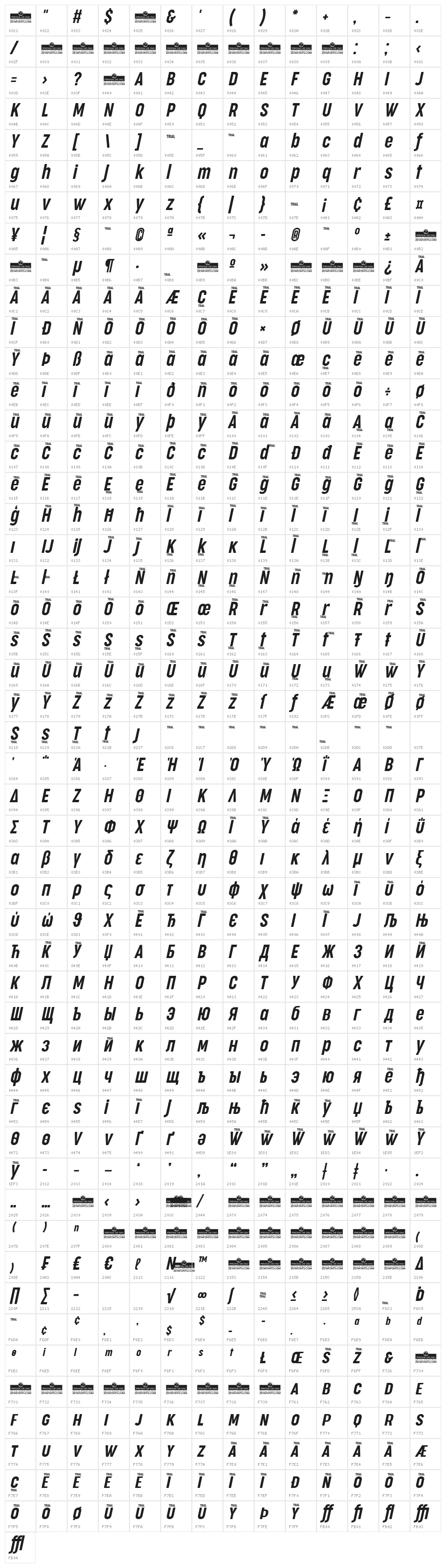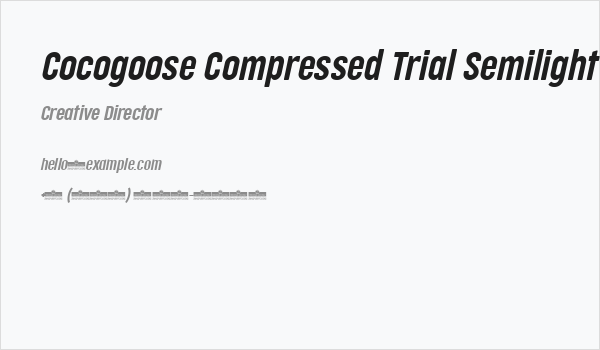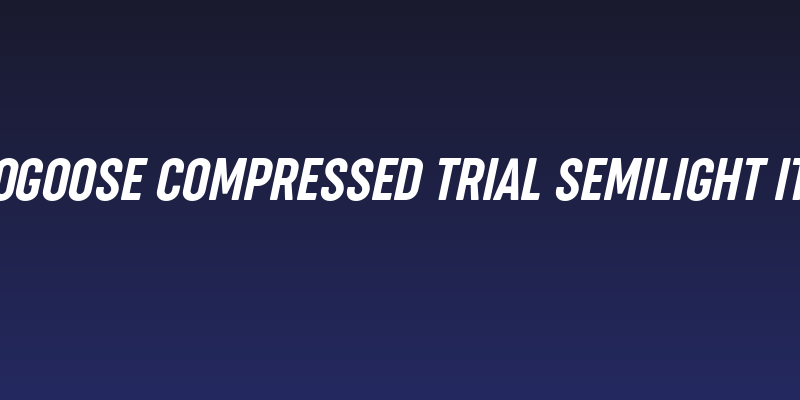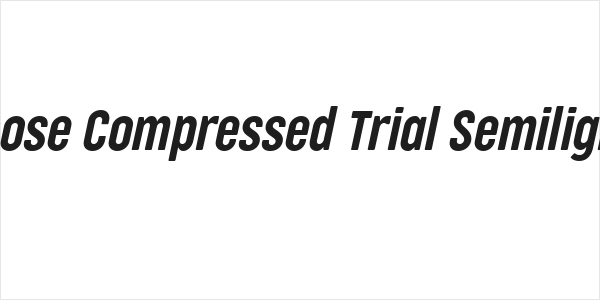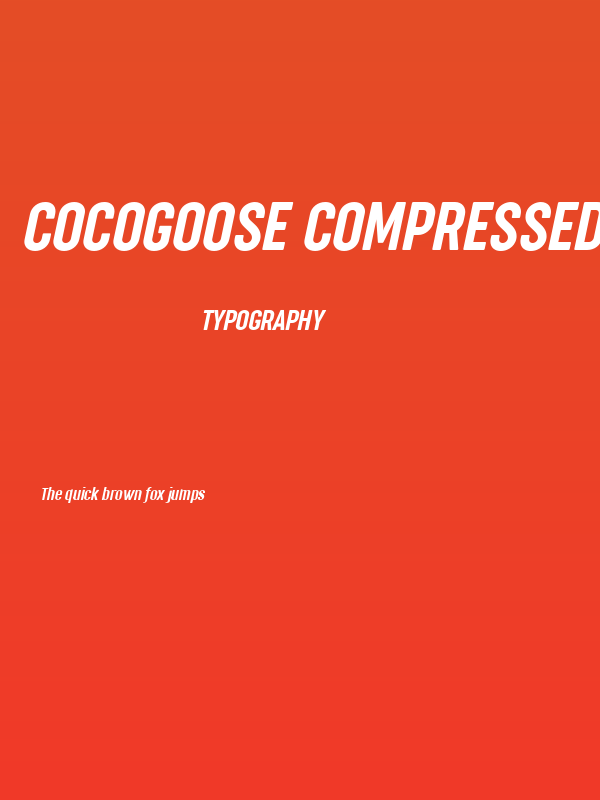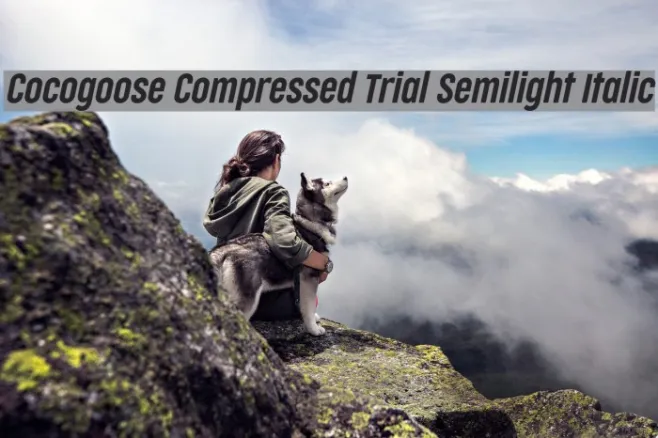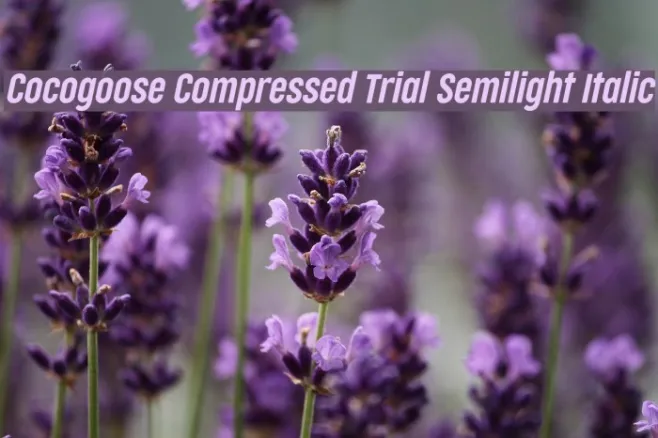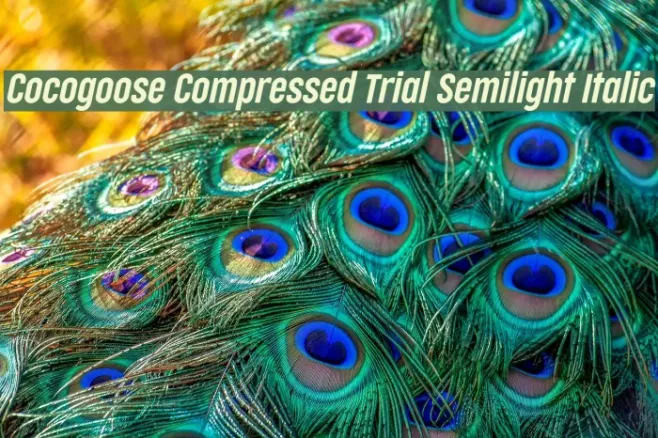
Cocogoose Compressed Trial Semilight Italic Font
This font features a modern, sleek design with a compressed and semi-light appearance. The italic style adds a dynamic and forward-leaning aspect, making it ideal for contemporary projects. The characters are well-defined with a consistent stroke width, offering a clean and professional look. The uppercase and lowercase letters maintain a uniform style, while the numerals and special characters are crafted to match the overall aesthetic. The font's design is suitable for a variety of applications, providing versatility and elegance.